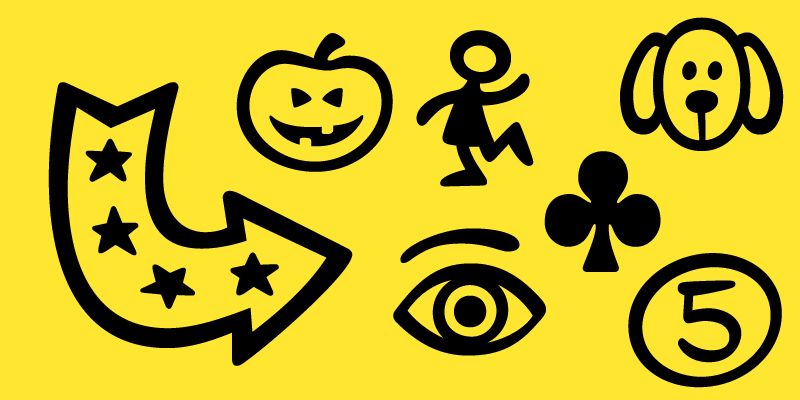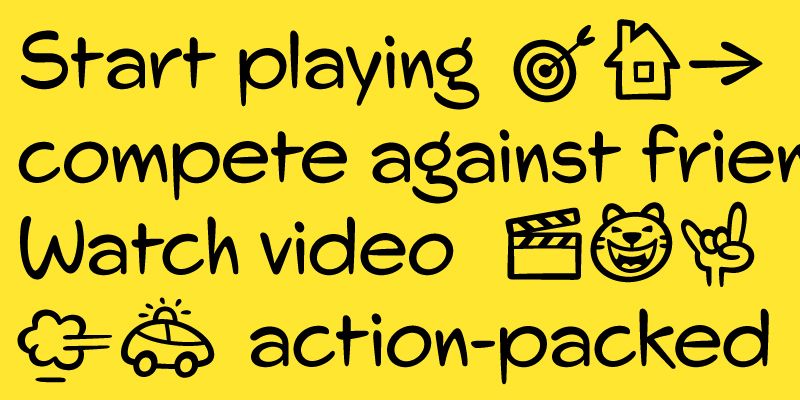
Jan Maack collaborated with Danish illustrator Erik Sørensen for the joyful illustrated typeface SwingKing. During his decades-long career that began in the pre-digital era, Sørensen always had difficulties finding the right typographic voice to match his illustrations and comic strips. Maack digitized, polished, and improved letters drawn by Sørensen to develop a useful casual sans that is neither cartoonish nor handwritten. Dozens of symbols, icons, and emojis amp up the fun factor. The Ivy Foundry, 2017.